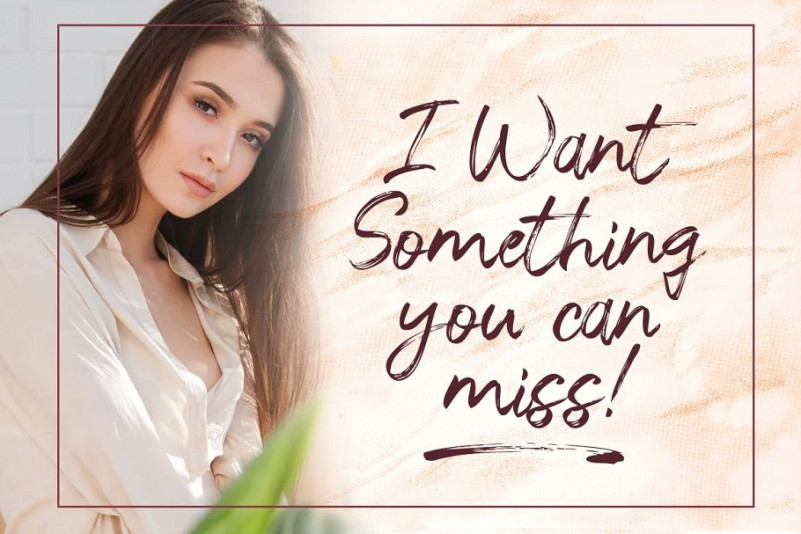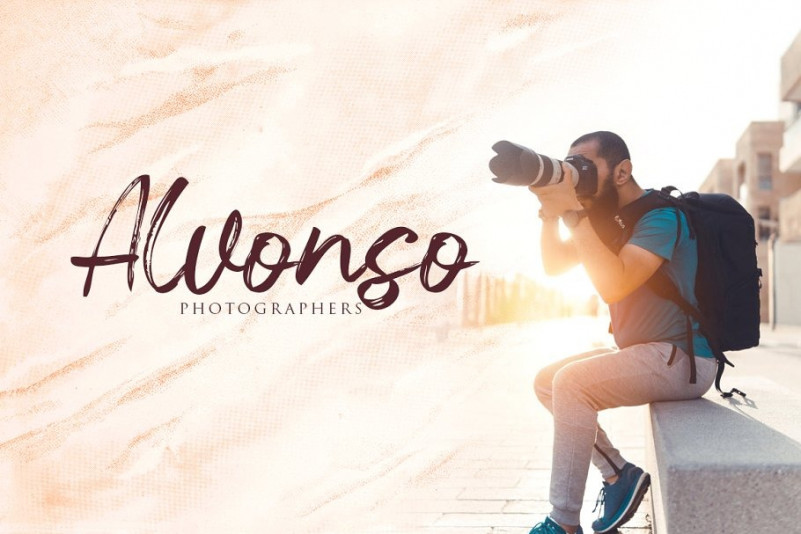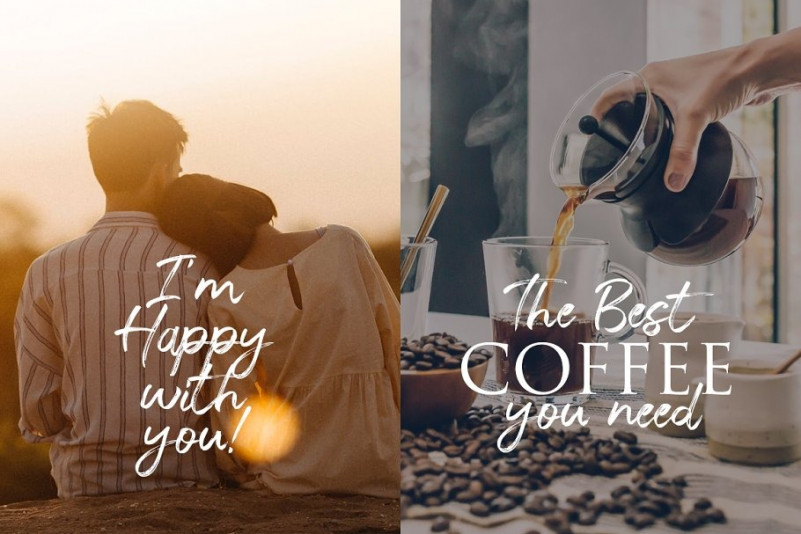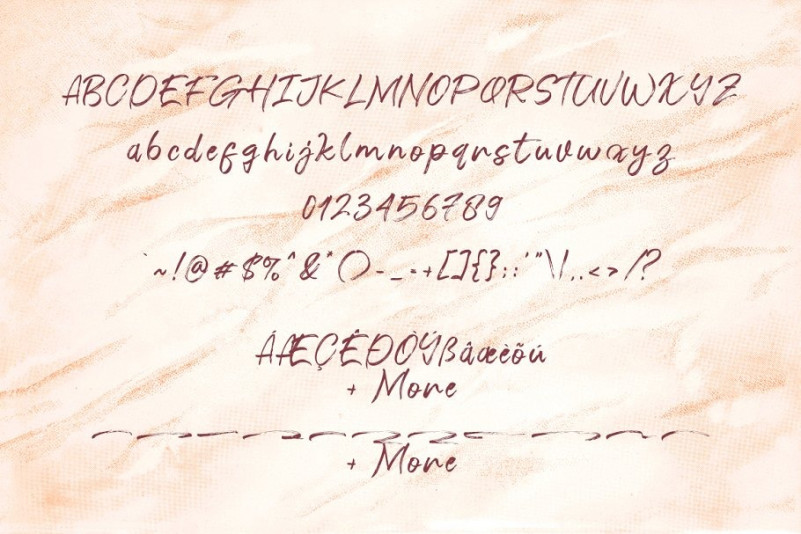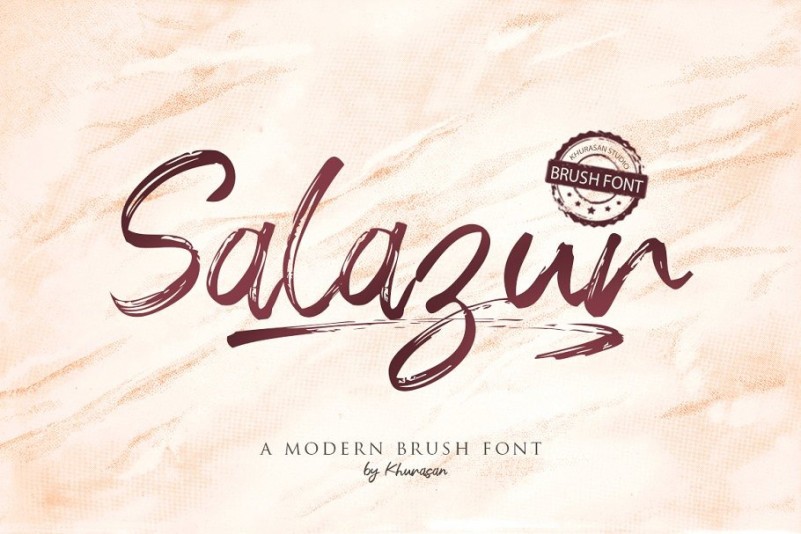
Salazur Brush Font
Are you looking for a brush font? Befonts can help! Try to download Salazur font. It’s a handwritten brush font, with sharp details. Written with a dry brush pen with fast movement and relaxed. It’s a fresh modern script font, elegant and modern feel character set. The Salazur font includes a full set capital and lowercase letters, as well as multi-lingual support, swashes, numerals, & punctuation. Thank you for checking and i hope you enjoy it. Always put your heart into it and don’t worry to try. I hope you have as much fun using it as i did making it.